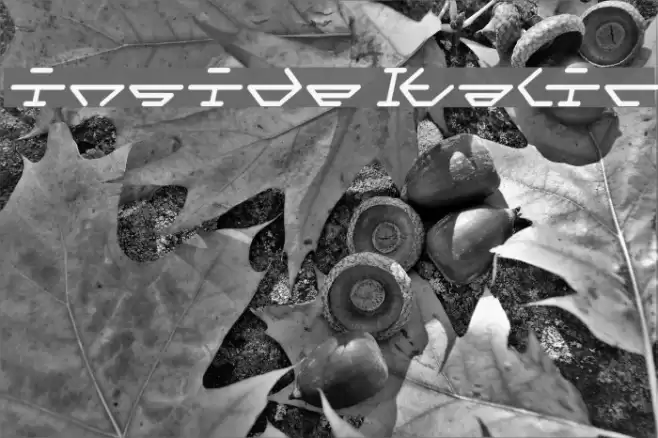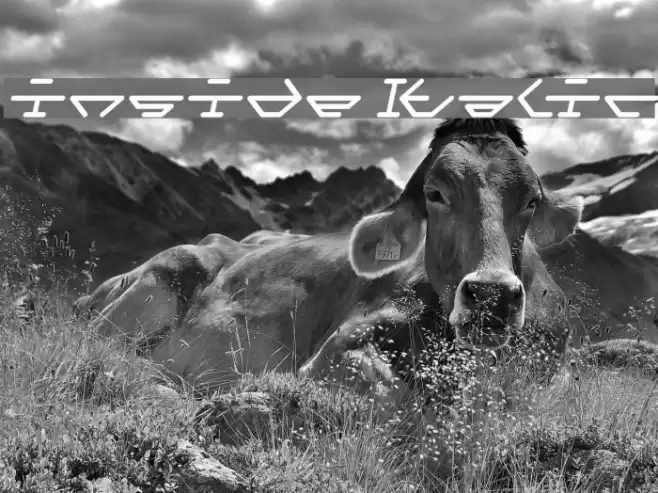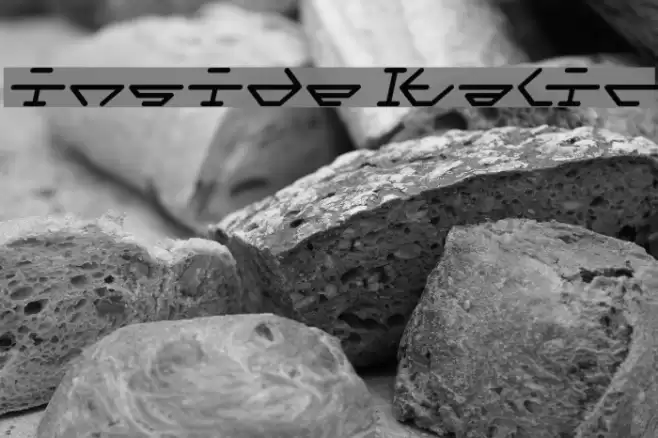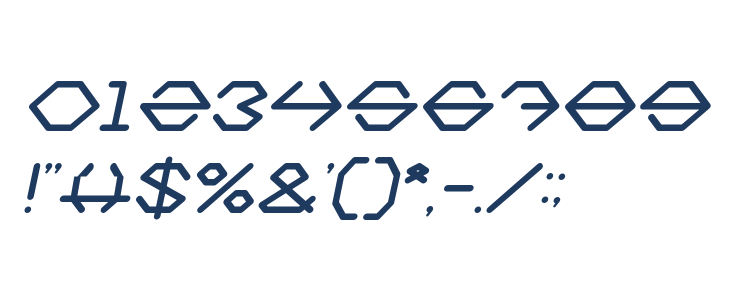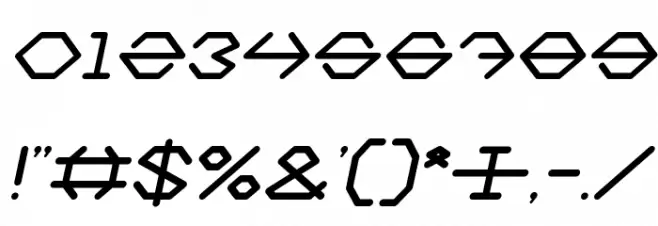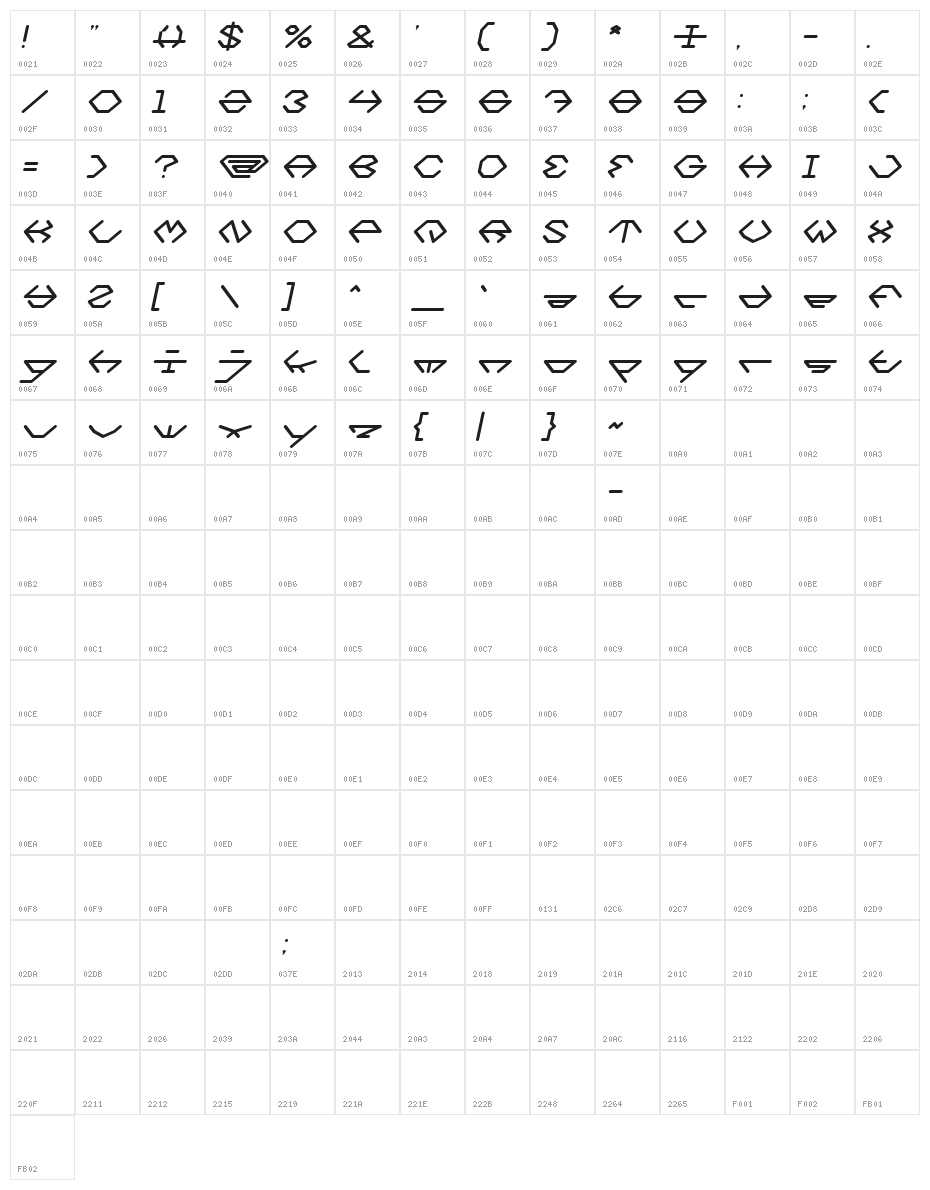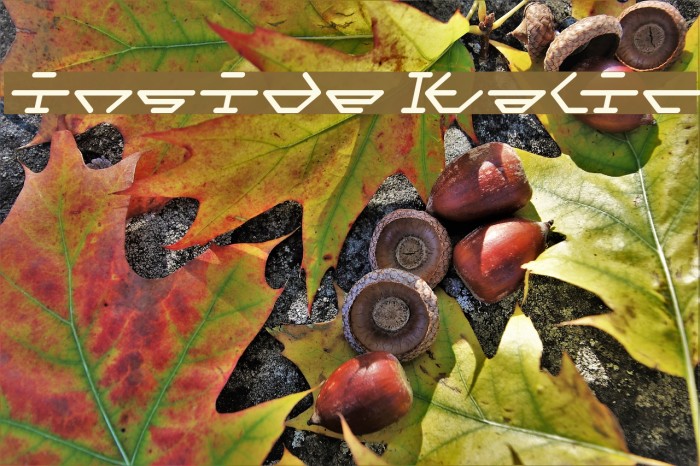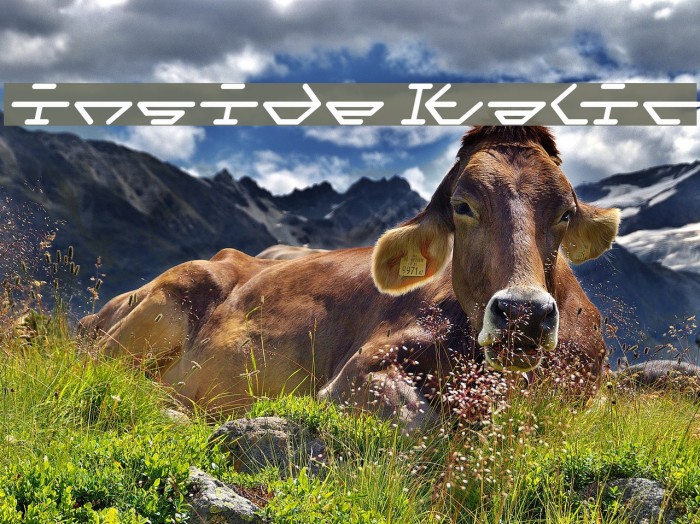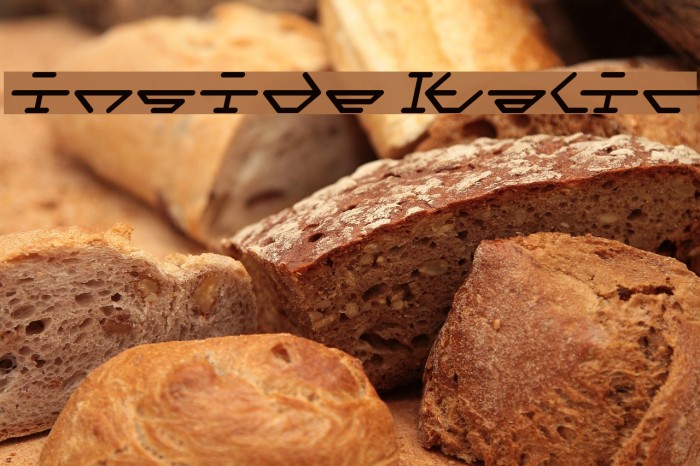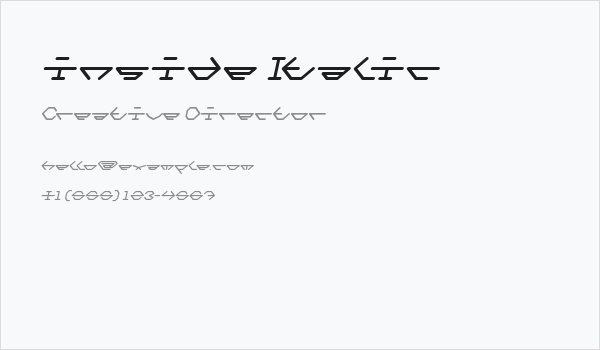
inside Italic Font
inside Italic Description
This font features a unique, geometric design with angular and interconnected strokes, creating a futuristic and tech-inspired appearance. The characters are composed of straight lines and sharp angles, giving them a distinctive, edgy look. The uppercase and lowercase letters maintain a consistent style, with a uniform thickness throughout. Numbers and special characters follow the same design principles, ensuring a cohesive visual identity. The font's structure is both modern and innovative, making it stand out in any design project.
A geometric, angular font with a futuristic and tech-inspired style from Uncategorized fonts.
- Proposed Projects: Ideal for technology branding, sci-fi themed designs, video game interfaces, and modern art projects.
- Overall Style: Futuristic